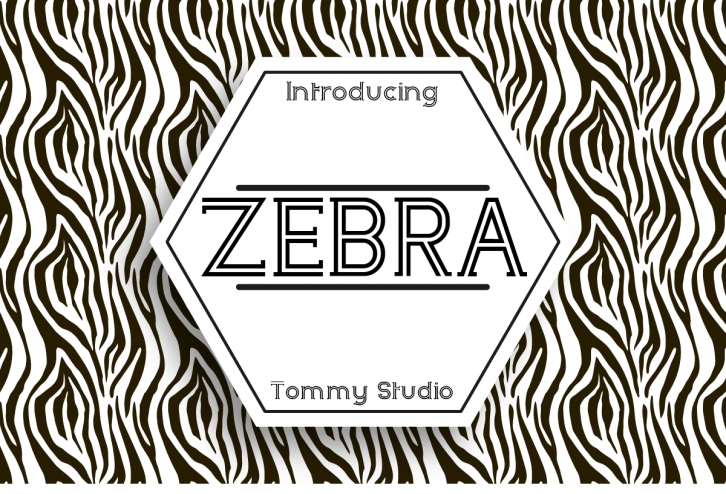
Zebra is a cool, modern, and fashionable display font. It will add a special, unique touch to any of your beautiful projects ranging from product packaging to business cards, and more!